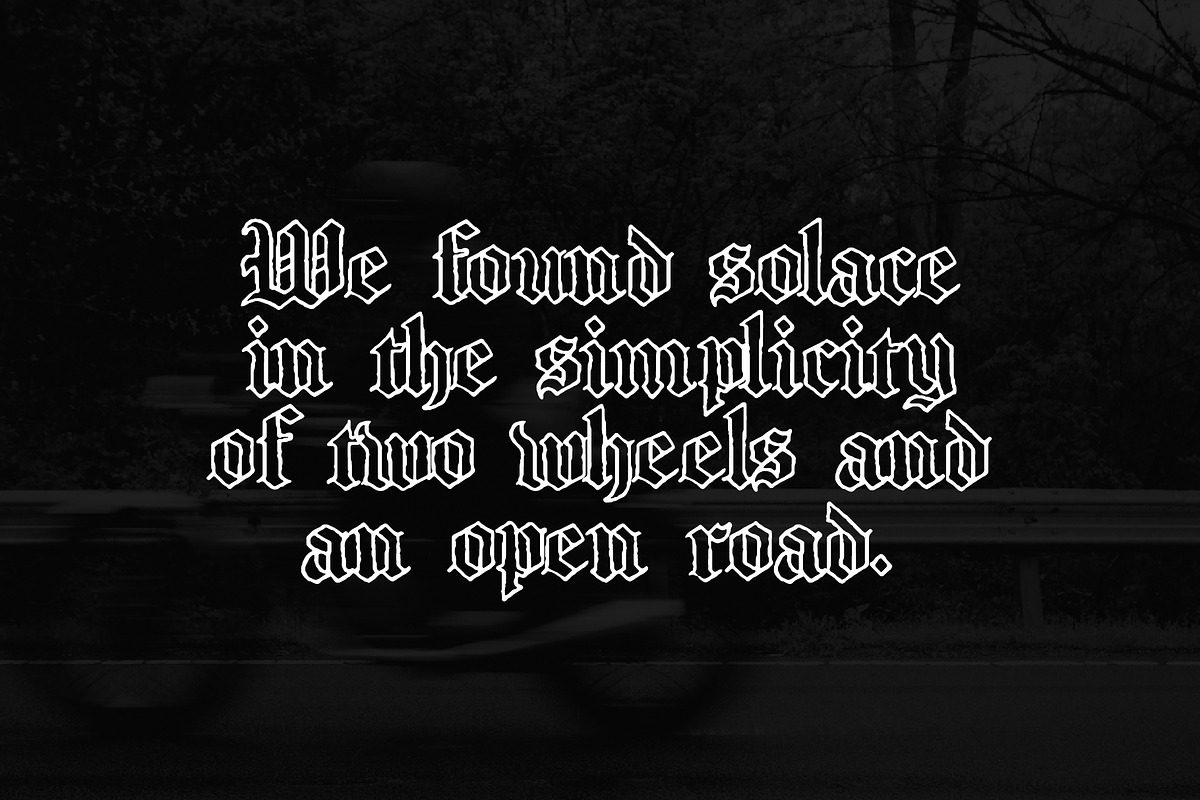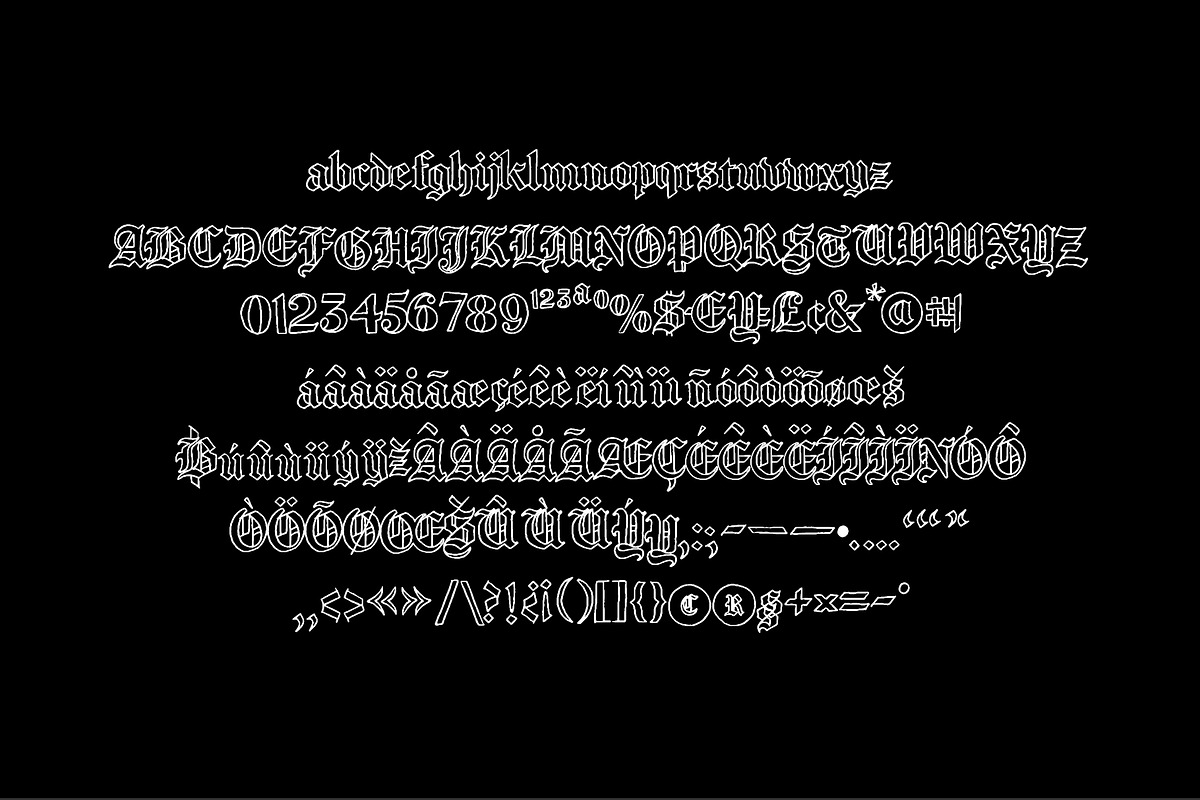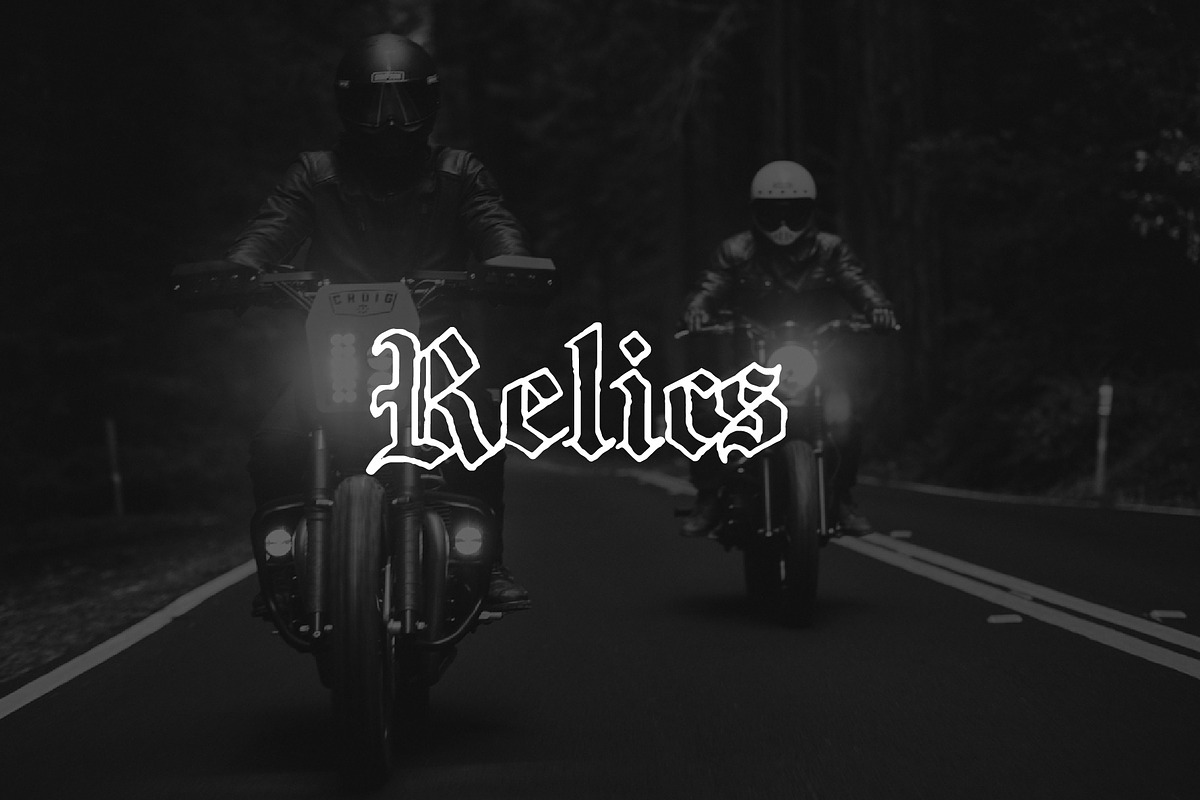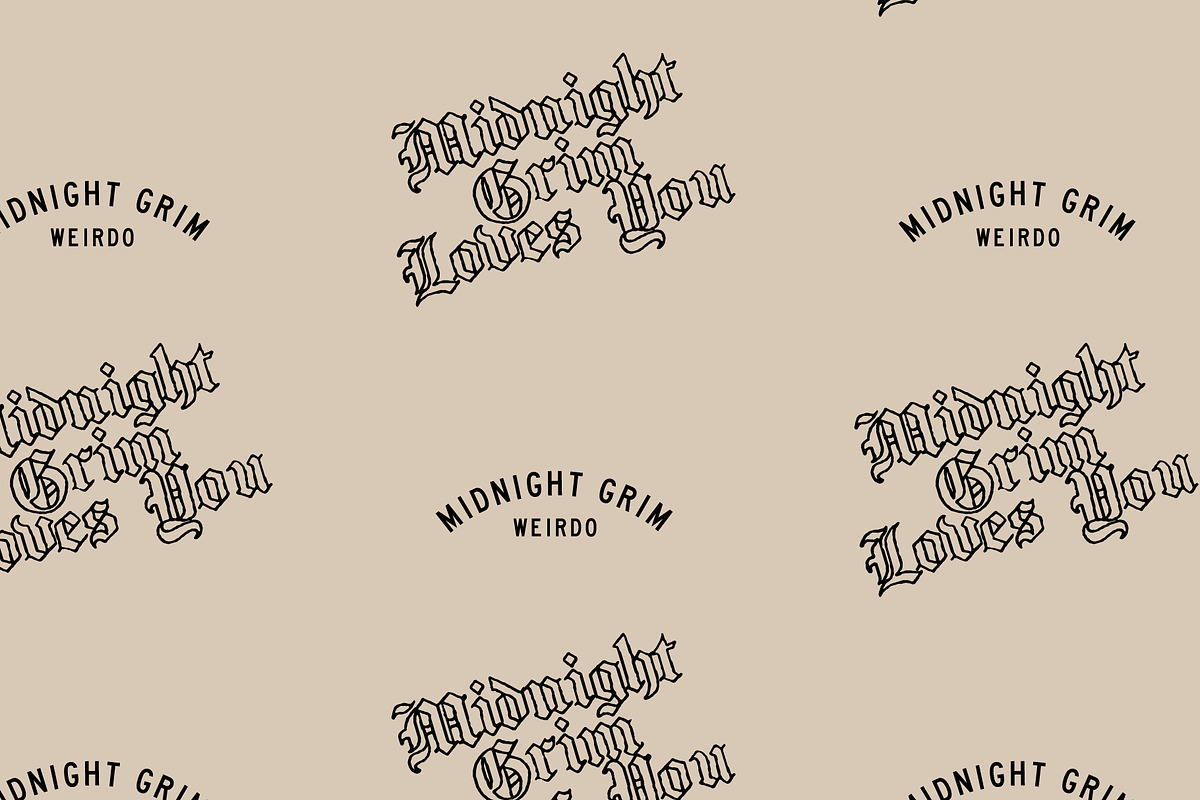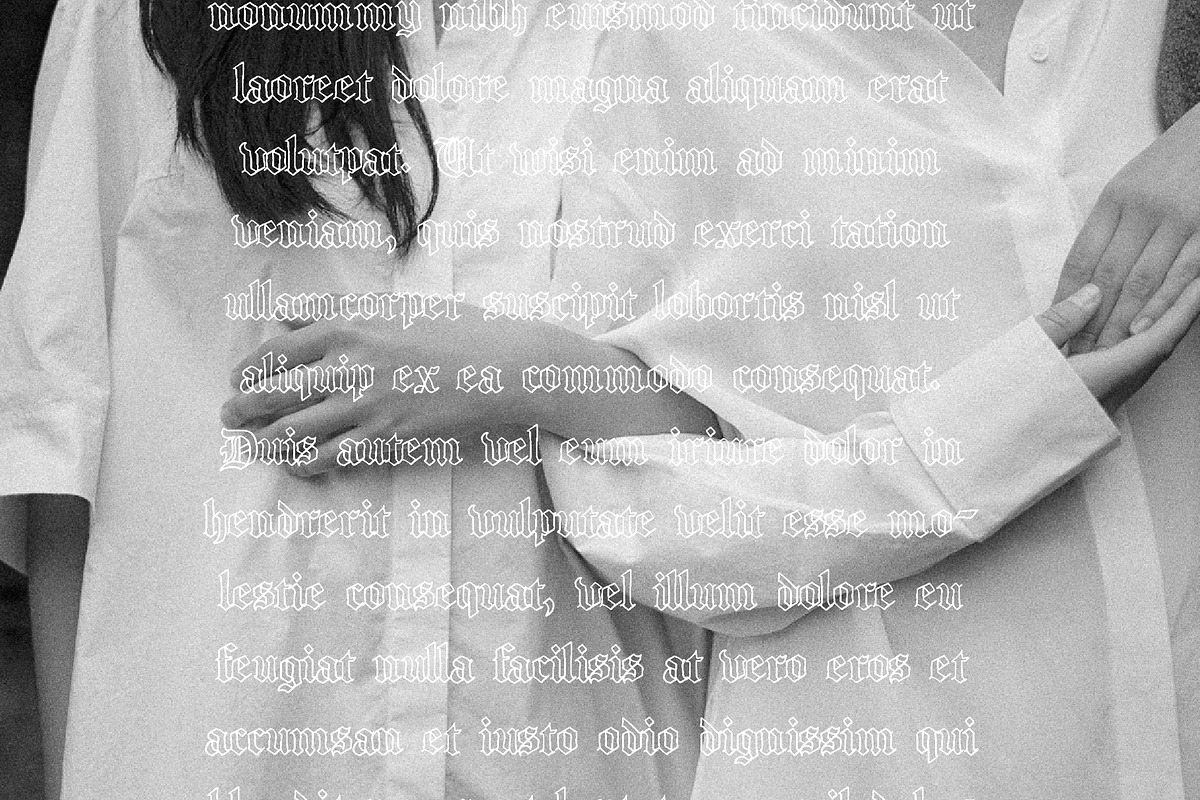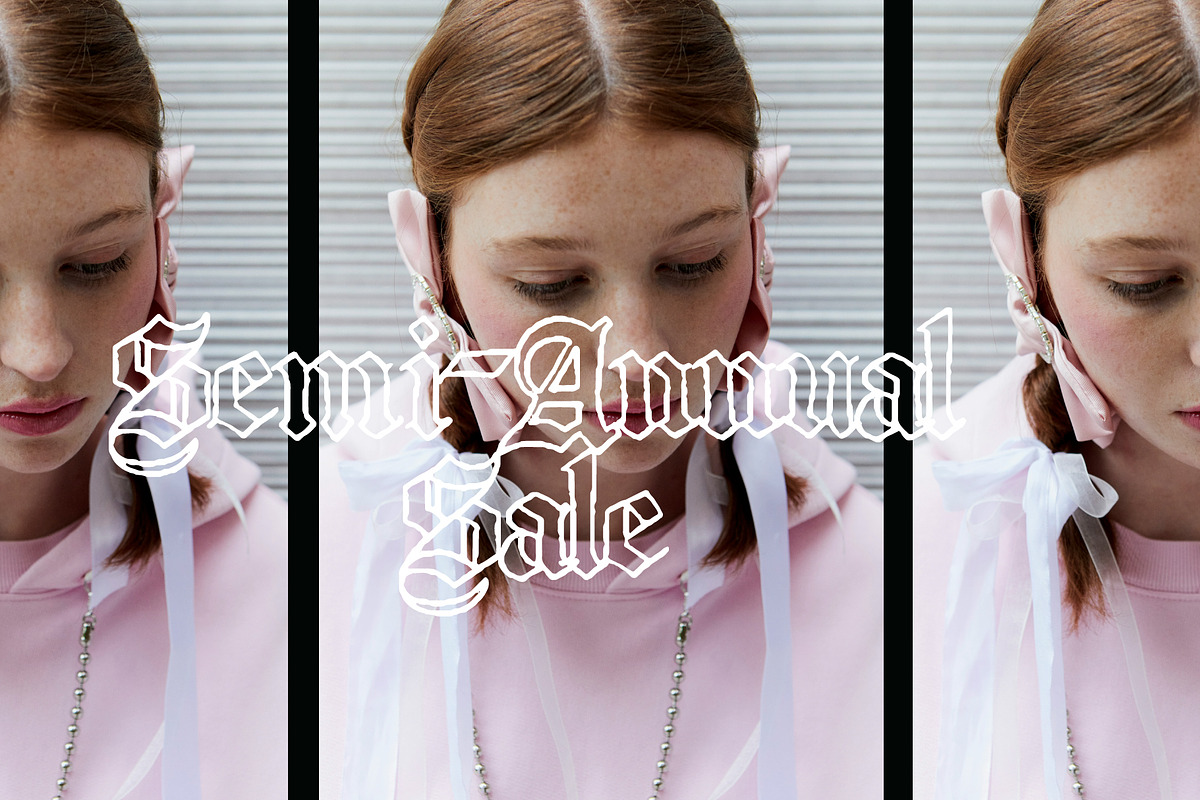
Relics - A New Age Blackletter
Introducing "Relics," a one-of-a-kind, hand-drawn blackletter font that exudes an edgy, cool, and rough aesthetic. Crafted with meticulous attention to detail, "Relics" is the perfect blend of traditional blackletter typography and contemporary design trends.
This font will add a unique, artistic touch to any project, making it perfect for logos, posters, apparel designs, album covers, and much more. With "Relics," you don't just get a font, you get a statement. Download "Relics" today and let your designs speak volumes.